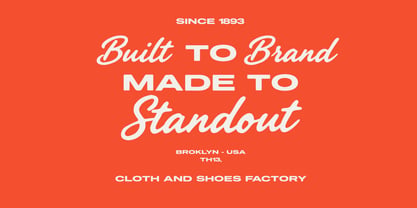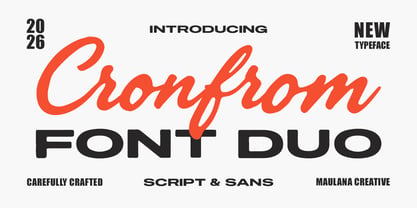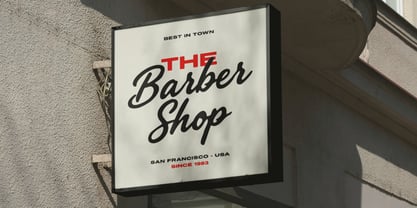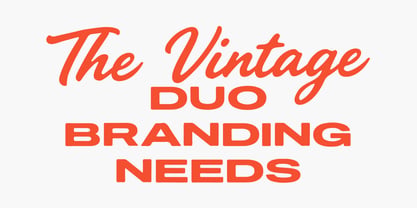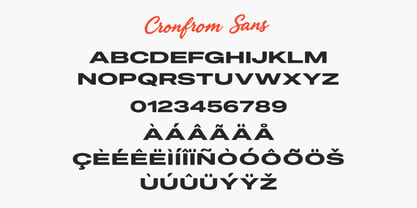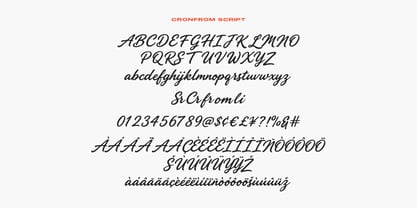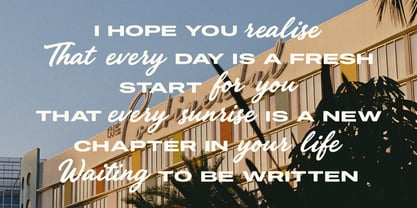
Cronfrom
by Maulana Creative
The Cronfrom Font Family was designed by Gilang Maulana and published by Maulana Creative. Cronfrom contains 2 styles and family package options. More about this family
Cronfrom Font Duo features a harmonious pairing between an elegant, expressive script and a bold, wide sans-serif typeface. Designed with clean curves and strong visual balance, this combination offers dynamic versatility for various visual communication projects. The flowing script delivers a human touch with modern flair, while the solid sans-serif grounds compositions with stability and readability across digital mediums.
Engineered for seamless integration, this typeface pair simplifies typographic hierarchy in graphic design layouts, branding assets, poster artwork, and web displays. The contrasting styles complement each other effortlessly, allowing creators to craft high-impact titles alongside legible secondary text without needing additional font pairings.
Designers: Gilang Maulana
Foundry: Maulana Creative